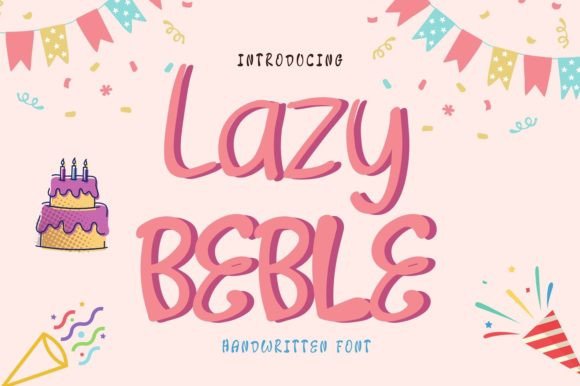
Introducing Lazy Beble Font: The Quintessential Handwritten Masterpiece
In a world clamoring for authenticity, the Lazy Beble Font emerges as an oasis of charm and originality. This enchanting script font, crafted with meticulous care by Brown Cupple Fonts, is not just a collection of letters; it's an artistic expression that captures the essence of handwritten beauty.
With its graceful curves, playful strokes, and endearing imperfections, Lazy Beble Font embodies the magic of heartfelt communication. It's as if each word, each letter, has been penned with a quill, carrying a whisper of the writer's soul.
Unleash your creativity with Lazy Beble Font and let your designs exude a touch of whimsy and authenticity. Its versatility knows no bounds, perfectly complementing blog posts, logos, branding initiatives, advertisements, invitations, greeting cards, planners, photo albums, decorations, and myriad other projects.
Step into a realm of endless possibilities with Lazy Beble Font. Let its handwritten charm elevate your designs, captivating your audience with a sense of warmth and genuine connection. Join the legion of creative minds who have embraced Lazy Beble Font and witnessed the transformation of their projects into works of art.